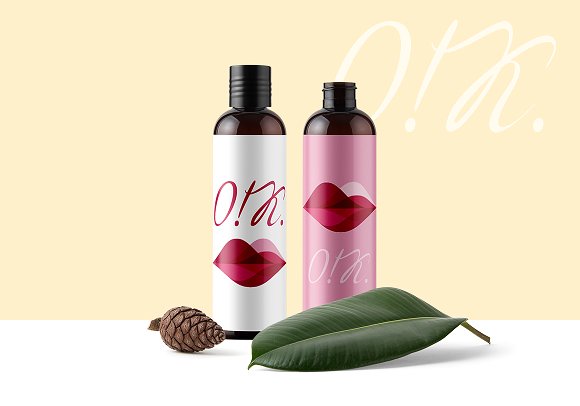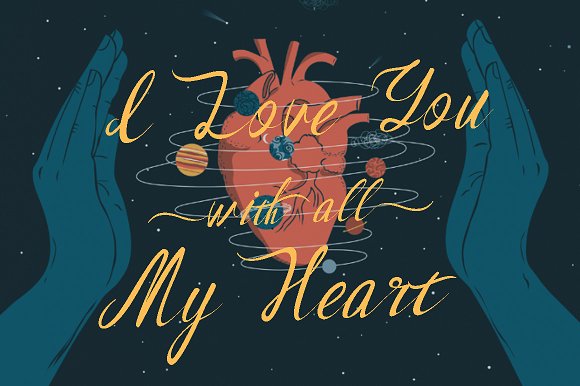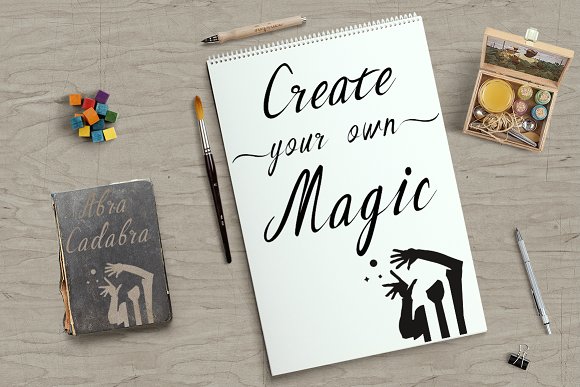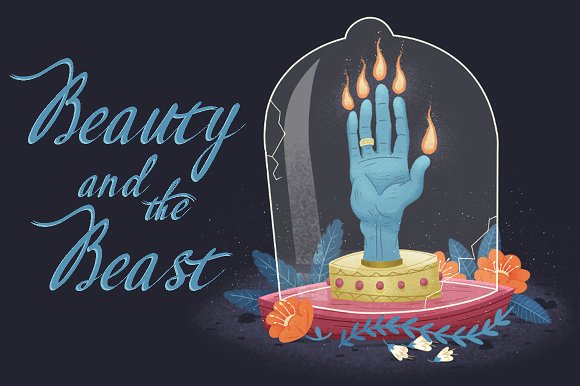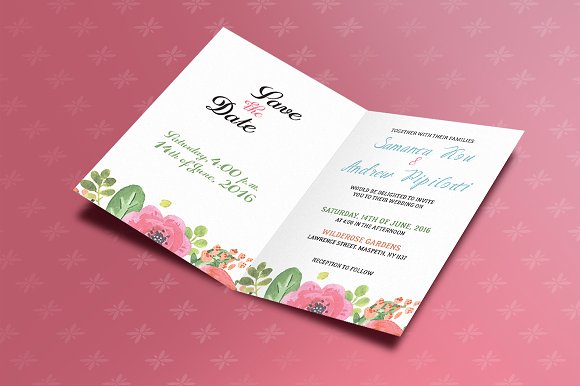
Pluma Font
About Pluma Font
Pluma is a handwritten script by Etewut.
This smooth and elegant font is great for creating personalized designs such as (wedding/birthday) invites, cards, signs but also for more serious designs such as headlines.